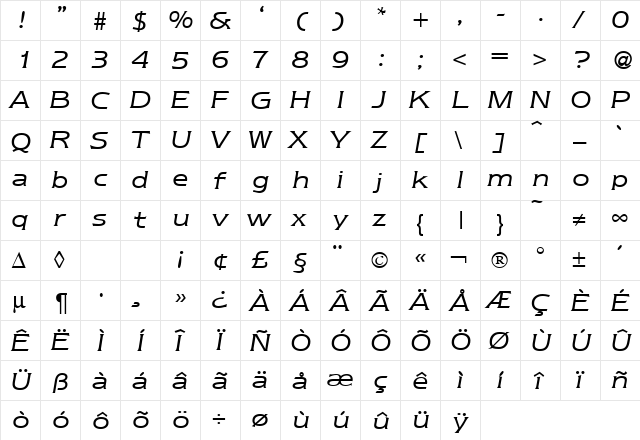
Nebraska RegularItalic Font Preview
Nebraska RegularItalic
Design Context for Nebraska Typeface
Nebraska offers clean, dependable letterforms without strong stylistic allegiance, making it a practical choice for designers who need flexibility. The dynamic lean of this cut emphasises speed and emphasis in any layout.
Pro Tip: Use Nebraska for emphasis, pull quotes, and subheadings where its slanted energy can add rhythm to the layout.